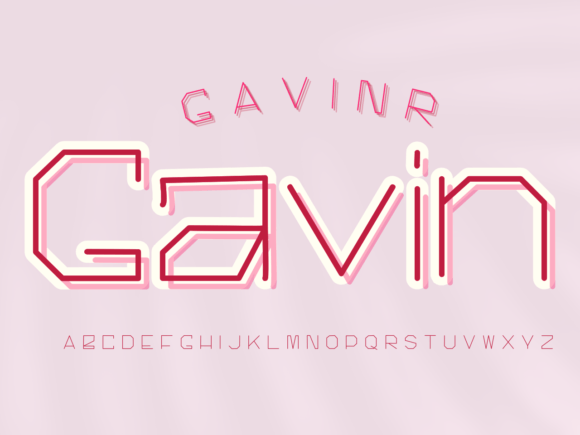
Gavin: The Unique Display Font for Bold Ideas
Imagine spending hours perfecting a logo, designing a poster, or crafting a social media graphic, only to feel that something is missing. Often, the gap between a good design and a great one isn't the layout or the color palette; it's the typography. This is where Gavin steps in. As an incredibly unique display font, Gavin is masterfully designed to become a true favorite for creators who need their work to stand out. It has the potential to bring each of your creative ideas to the highest level by adding character, weight, and personality that standard fonts simply cannot match.
For beginners and seasoned professionals alike, choosing the right typeface can feel overwhelming. There are thousands of options available, many of which look similar or lack the versatility needed for modern projects. Gavin distinguishes itself by offering a distinct visual voice. It isn't just a tool for typing words; it is a design element that communicates mood and tone before the reader even processes the message. Whether you are a small business owner launching a new brand or a hobbyist making invitations for a family event, understanding how to leverage this font can transform your output.
What Makes Gavin Stand Out?
At its core, Gavin is a display font, which means it is optimized for use in headlines, titles, and short bursts of text rather than long paragraphs. Its uniqueness lies in its balanced yet striking letterforms. Unlike generic sans-serif fonts that aim for invisibility, Gavin demands attention. The curves are deliberate, the strokes have a specific rhythm, and the overall geometry feels both contemporary and timeless.
One of the primary reasons designers and entrepreneurs gravitate toward Gavin is its ability to convey confidence without being aggressive. Some display fonts are so stylized that they become hard to read or feel too niche for general use. Gavin strikes a sweet spot. It retains high legibility while offering enough flair to make a statement. This makes it an excellent choice for branding projects where you want to appear professional yet approachable. The font's structure supports various weights and styles, allowing you to create hierarchy within a single design piece easily.
Ideal Use Cases for Your Projects
Knowing where to use a font is just as important as knowing why. Because Gavin is a display typeface, it shines in contexts where impact is key. Here are several practical scenarios where this font can elevate your work:
- Brand Identity and Logos: If you are starting a boutique coffee shop, a creative agency, or a fashion label, Gavin can serve as the cornerstone of your logo. Its unique shapes ensure your brand name is memorable.
- Marketing Materials: From flyers and brochures to business cards, using Gavin for headers can guide the viewer's eye and emphasize key offers or messages.
- Digital Content: Bloggers and marketers can use Gavin for featured images on social media posts or YouTube thumbnails. In a crowded feed, a distinctive font helps stop the scroll.
- Packaging Design: For product-based businesses, the text on your packaging is often the first interaction a customer has with your product. Gavin adds a premium feel that suggests quality.
- Event Invitations: Whether it's a wedding, a corporate gala, or a birthday party, Gavin brings a celebratory and elegant touch to printed invites.
Educators and presenters can also benefit from using Gavin in slide decks. While body text should remain simple for readability, using Gavin for section dividers or title slides can keep the audience engaged and make the presentation feel more polished and less like a standard template.
Why Creators Choose Gavin
The appeal of Gavin extends beyond its aesthetic qualities. For freelancers and agency owners, time is money. A font that works well across different mediums reduces the time spent tweaking kerning or searching for alternatives. Gavin is designed to be versatile, meaning you can pair it with a wide range of secondary fonts. It plays nicely with clean sans-serifs for body copy or even classic serifs for a more traditional contrast.
Furthermore, in an era where digital presence is crucial, having a unique typographic voice helps in building brand recognition. When customers see a specific style of lettering repeatedly across your website, Instagram, and email newsletters, they begin to associate that style with your business. Gavin provides that consistency. It allows you to maintain a cohesive look without becoming boring or repetitive.
For the hobbyist or the casual user, the value lies in the ease of achieving professional results. You don't need to be a graphic design expert to make something look good with Gavin. Its inherent balance means that even simple layouts look intentional and well-crafted. This democratization of design quality empowers more people to share their ideas visually without needing a large budget for custom lettering.
Important Considerations Before You Start
While Gavin is a powerful tool, it is essential to use it wisely to get the best results. As with any display font, there are best practices to keep in mind to ensure your designs remain effective.
Take the time to test Gavin in your upcoming projects. Try it on a mock-up logo, draft a social media header, or redesign a flyer. You may find that this masterfully designed font is exactly the missing piece you needed to take your creative work to the highest level.